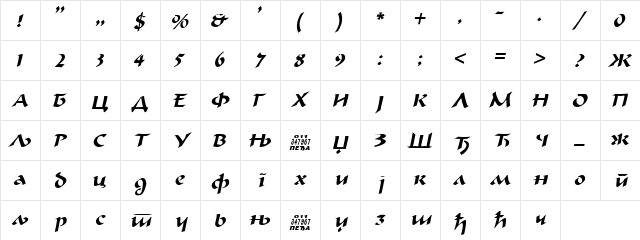
C_Mistral Italic
C_Mistral Family
C_Mistral Italic
C_Mistral Italic Character Map
Complete C_Mistral Italic glyph index. Displaying only characters natively supported by C_Mistral Italic font.
Design Context for C_Mistral
C_Mistral is a composed and adaptable typeface that performs quietly and consistently across a wide range of design contexts. The slanted form adds forward momentum and visual energy.
Pro Tip: Use C_Mistral for emphasis, pull quotes, and subheadings where its slanted energy can add rhythm to the layout.